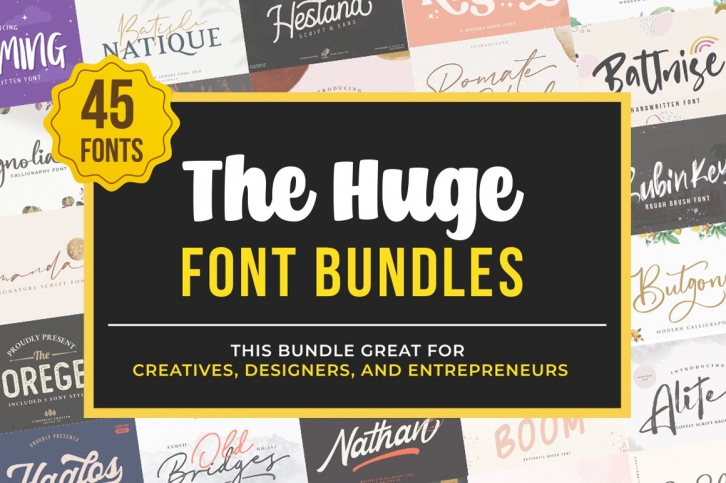
The Huge Font Bundle Collections Download
The Huge Bundle Collections is a trendy and unique font with an authentic style. It was designed by Vultype Co and it's a great choice for creative people who need such a font. It was released on October 29, 2020 and the file size is 17.3 MB. The Huge Bundle Collections will add an organic vibe to any design idea!